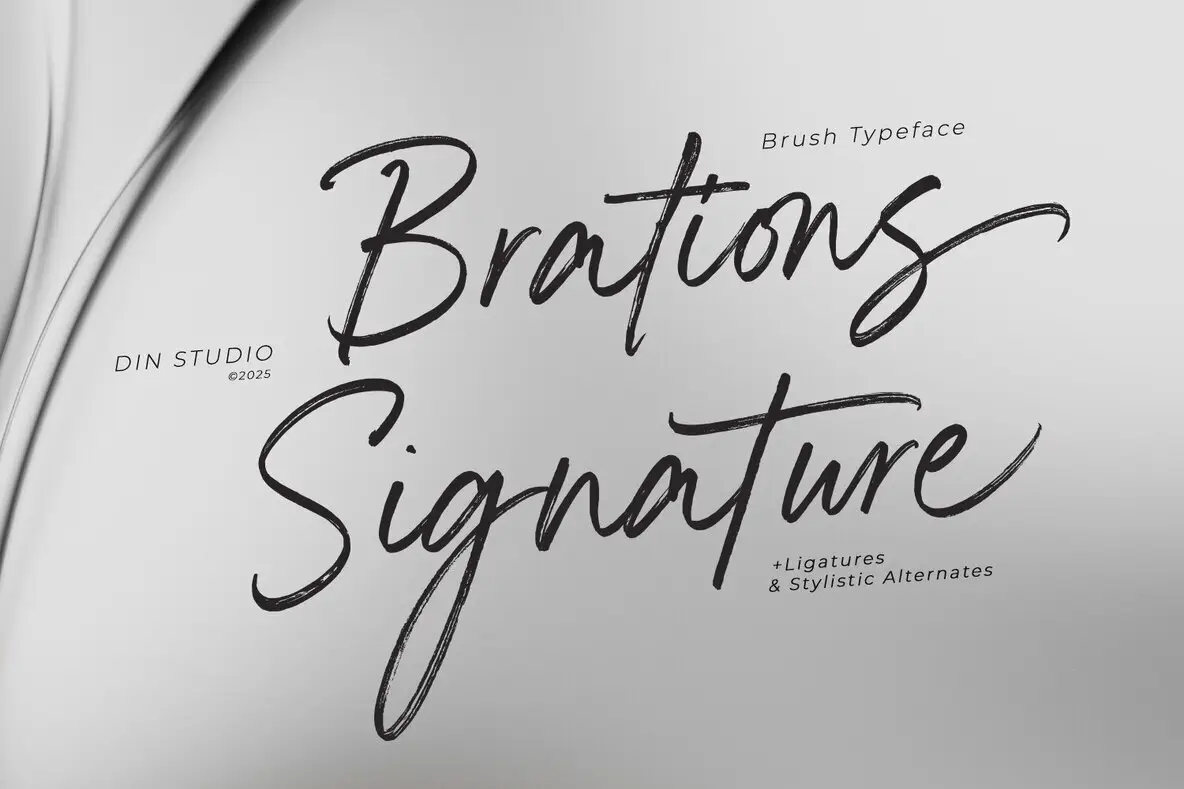
Brations Signature Font
Brations Signature Regular
Brations Signature captures the natural elegance of brush script with expressive, fluid strokes that echo authentic handwriting. Each letter is crafted with careful detail, featuring smooth lines, natural curves, and a dynamic motion reminiscent of true brushwork. The result is a typeface that feels organic, stylish, and effortlessly modern. This font brings a hand-painted character to a range of creative projects. It’s a versatile choice, fitting seamlessly in branding, quotes, name cards, apparel, logos, posters, and more. The authentic texture and motion of each letter add a unique touch, making your designs stand out with a refined handwritten quality.Brations Signature Brush Script Font